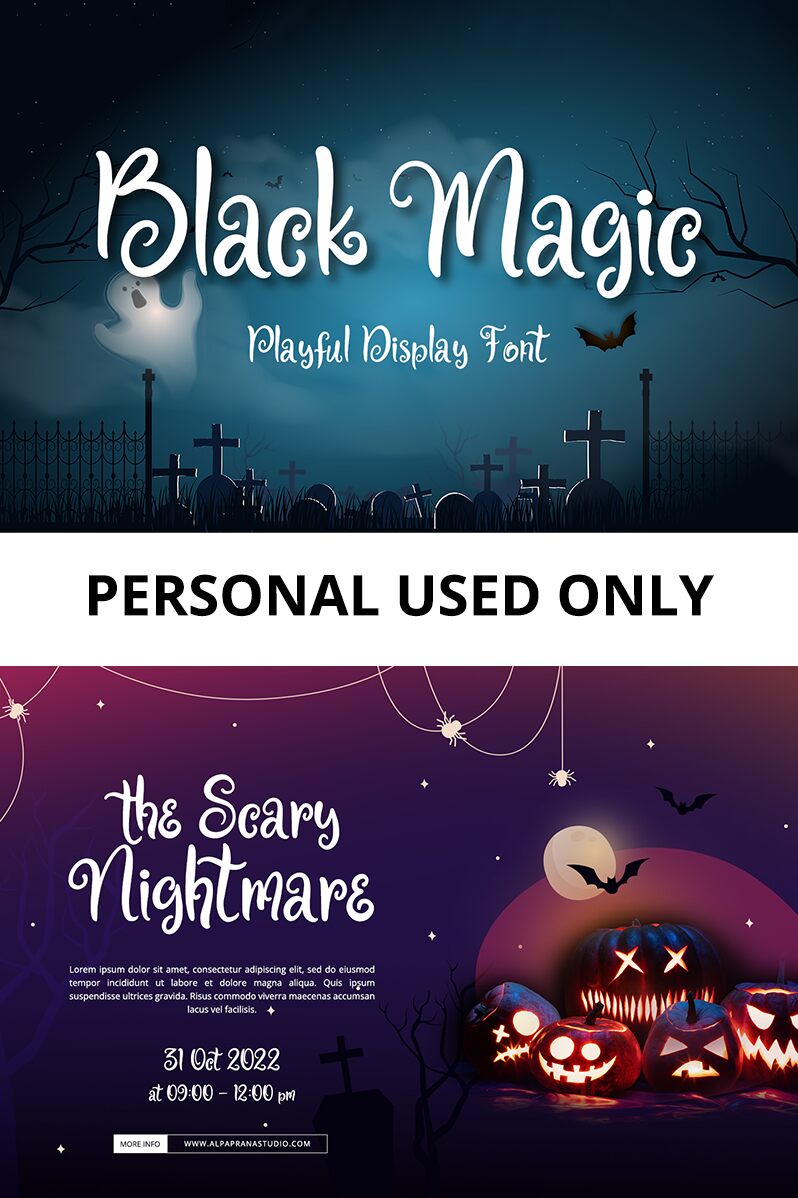
Black Magic, designed by Alpaprana Studio, is a captivating holiday font that exudes the enchanting essence of Halloween. With its semi-light weight and adorable playfulness, this font is an ideal choice for a variety of creative projects.
Its versatility makes it perfect for branding, logo design, lettering, and logotypes. Additionally, it is well-suited for clothing designs, posters, magazines, packaging, shopping bags, and t-shirts. The unique charm of Black Magic would also be a great fit for book covers and photography projects.
Whether used for special events or other design endeavors, this stunning font will surely cast a spell on any viewer.